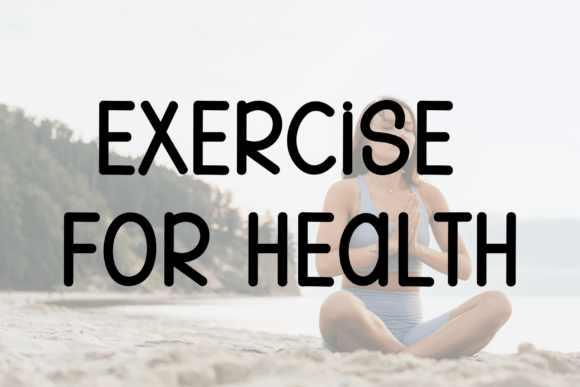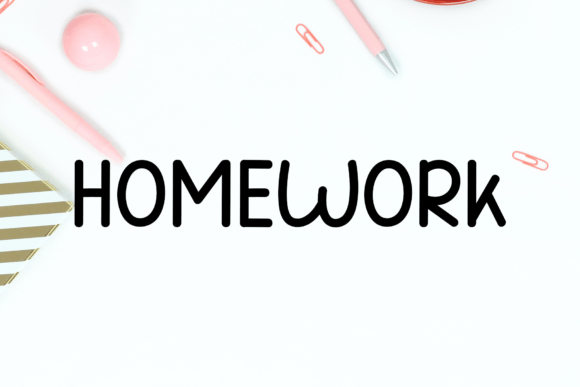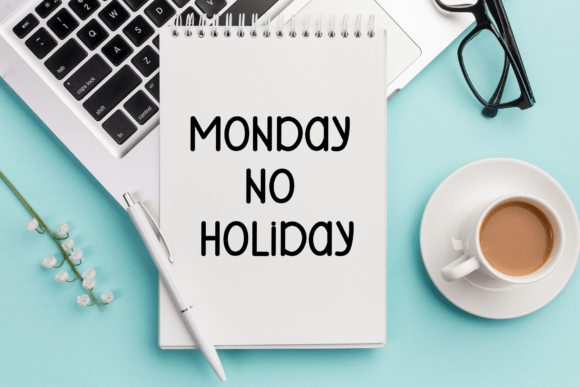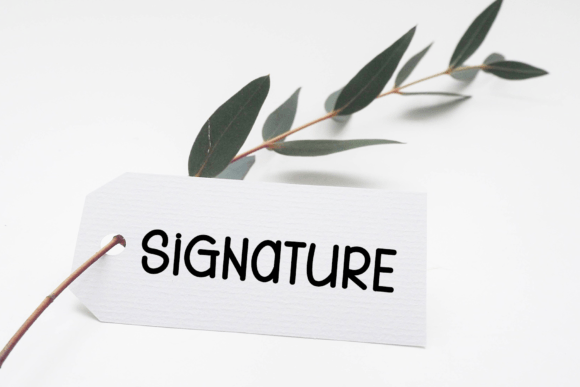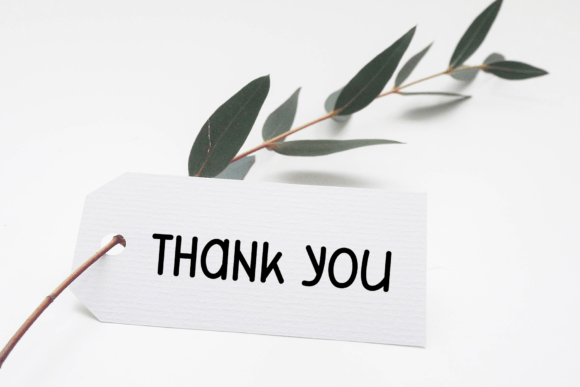
Start Font
About Start Font
“Start” is a chic handwritten font that seamlessly merges contemporary aesthetics with flawless form, taking inspiration from the enduring beauty of classic calligraphy. This font strikes an elegant balance, offering a diverse and harmonious design that is sure to elevate the visual appeal of your creative projects.
One of the standout features of “Start” is its ability to capture the essence of classic calligraphy while infusing it with a modern twist. The font’s meticulously designed characters and clean lines pay homage to the elegance of traditional calligraphy, while its polished and contemporary appearance adds a fresh touch.
“Start” boasts a well-balanced design that is neither excessively thin nor overly thick. This equilibrium ensures that “Start” is a versatile choice suitable for a wide range of design applications. Whether you’re working on print materials, digital graphics, websites, or any other creative endeavor, “Start” adapts seamlessly to your needs.
The meticulous craftsmanship and impeccable execution of “Start” make it a perfect choice for projects where aesthetics and visual impact are paramount. It excels in crafting invitations for special events, creating logos that exude sophistication, or simply enhancing the overall visual appeal of your content.
Furthermore, “Start” is more than just a font; it’s a design asset that exudes character and charm. Its handwritten appearance adds a personal and authentic touch to your projects, making them feel welcoming and approachable. It’s an excellent choice when you want to infuse a sense of style and authenticity into your work.
In conclusion, “Start” is a remarkable handwritten font that effortlessly blends classic calligraphy with contemporary design. Its ability to strike a perfect balance between tradition and modernity, its adaptability to various creative projects, and its capacity to infuse a personal touch into your designs make it an invaluable addition to your font collection. Embrace the elegance and versatility of “Start” in your next project, and watch as it enhances the beauty and sophistication of your creations.